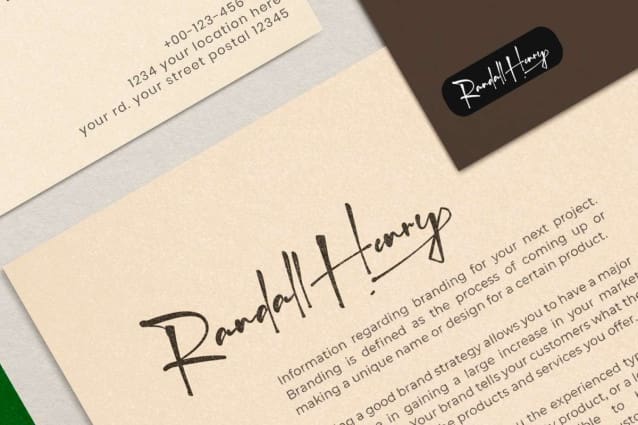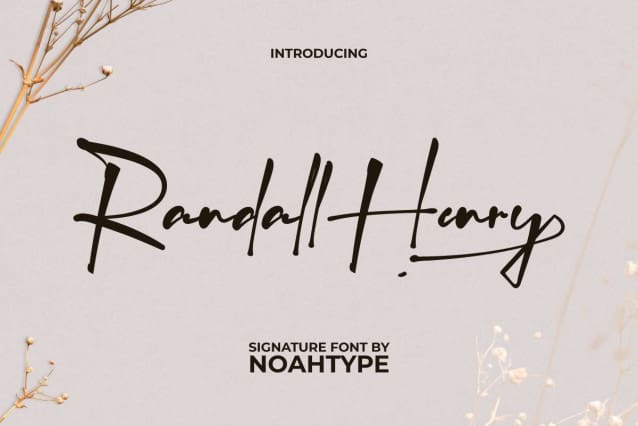
Randall Henry Font
Randall Henry Font is an elegant signature handwriting font with heavy ink pen writing. This font has firm lines and is neatly crafted to make any of your designs stand out. It will be suitable for any industries, such as beauty product, event or wedding organizer, fashion, furniture, jewelry and accessories, hotel and resort, printing, publishing, etc.
Randall Henry Font includes full set of Uppercase and Lowercase Basic Characters, Numerals, Punctuation, Alternate, Ligature, and Swoosh characters. Get inspired and use this exclusive font in your various designs, such as brand image, custom design, gift box, invitation, poster, product packaging, quote, screen printing, stationery, website, and more!